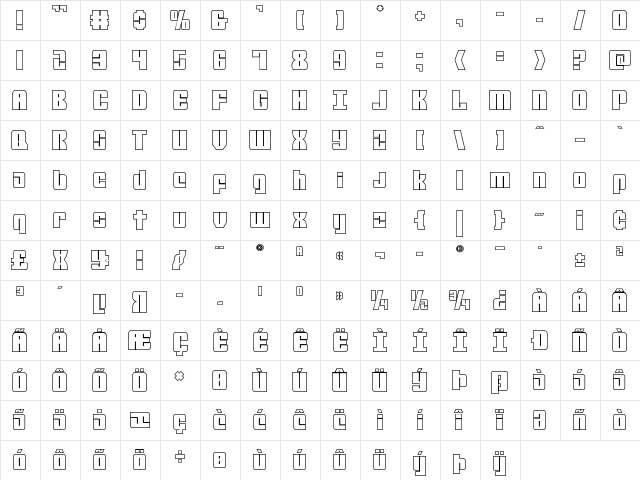
Mobile Infantry Outline Regular
Design Context for Mobile Infantry Outline Typeface
Mobile Infantry Outline brings ornamental detail and strong personality to headlines and identities, where visual impact matters more than quiet functionality.
Font Pairing: Pair with a clean neutral sans-serif for body copy to let Mobile Infantry Outline's character lead without overwhelming the composition.
Pro Tip: Use Mobile Infantry Outline exclusively at display sizes — it was designed to be seen, not read at length. Let a neutral companion handle body copy.